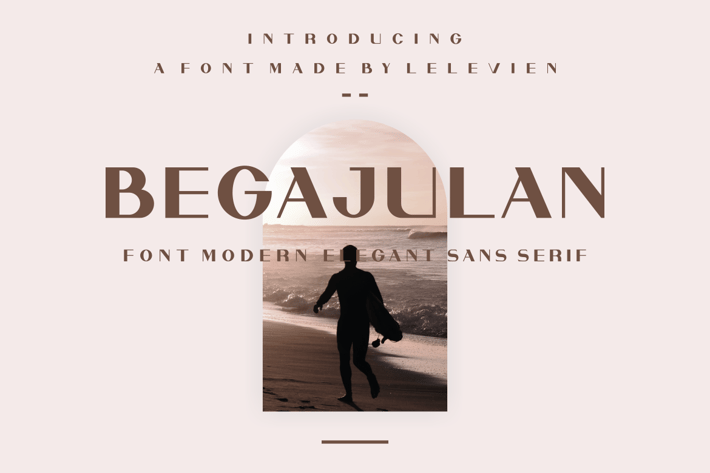
Begajulan Font
Begajulan is a Bold Minimalist Elegant Modern vintage font with beautiful ligatures, tons of special alternative glyphs, ornament and multilingual support. It's a very versatile font that works great in large and small sizes. Perfect for branding projects, Logo design, Clothing Branding, product packaging, magazine headers, or simply as a stylish text overlay to any background image.